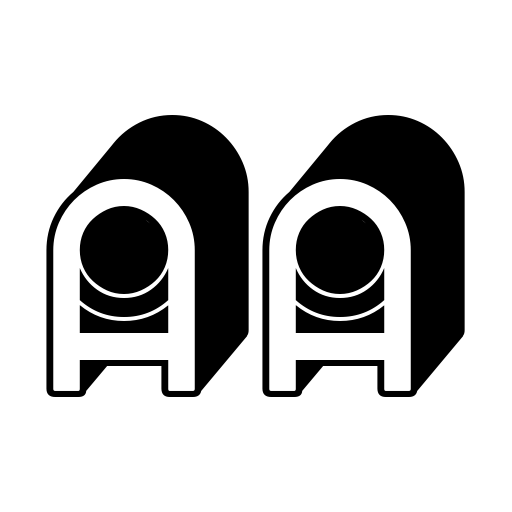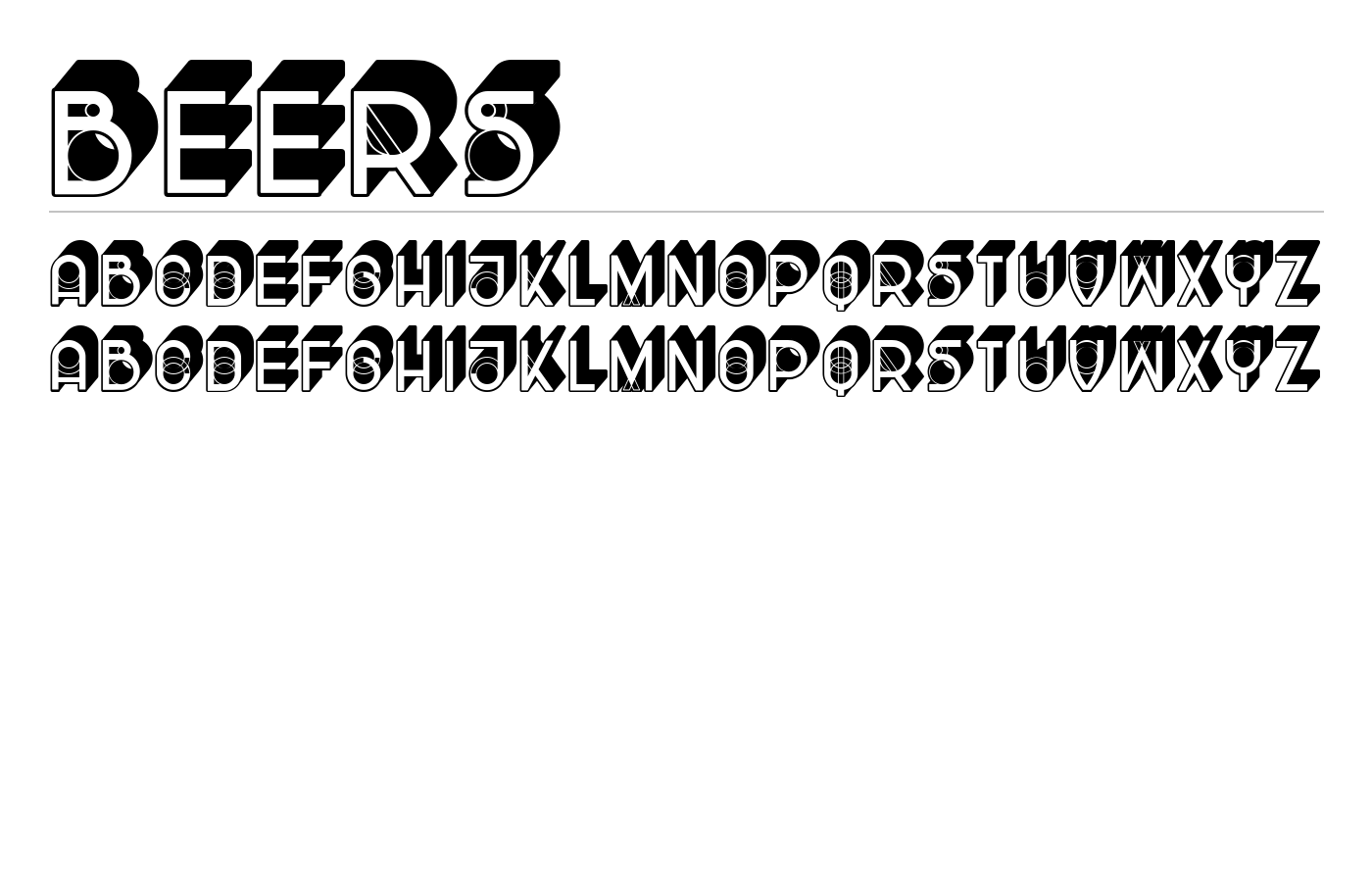
Beers Font is a bold and geometric sans serif typeface with a strong, modern personality defined by its layered, playful shadow effects and distinctive angular shapes. Its uppercase-only design with high contrast between thick and thin lines makes it ideal for eye-catching headlines and branding that needs a dynamic, contemporary style. This font works best for packaging, posters, and logos where a bold, stylish, and unique visual impact is desired.
Beers Font
About Beers Font